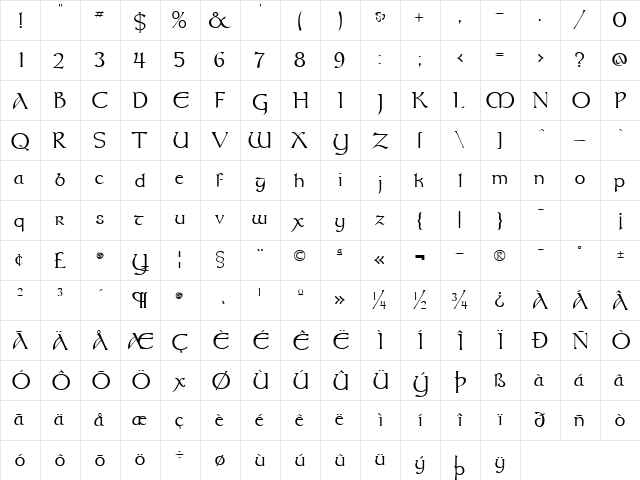
SolatSSK Regular Font Preview
SolatSSK Regular
SolatSSK Regular Font Details
Design Context for SolatSSK Typeface
SolatSSK is a composed and adaptable typeface that performs quietly and consistently across a wide range of design contexts.